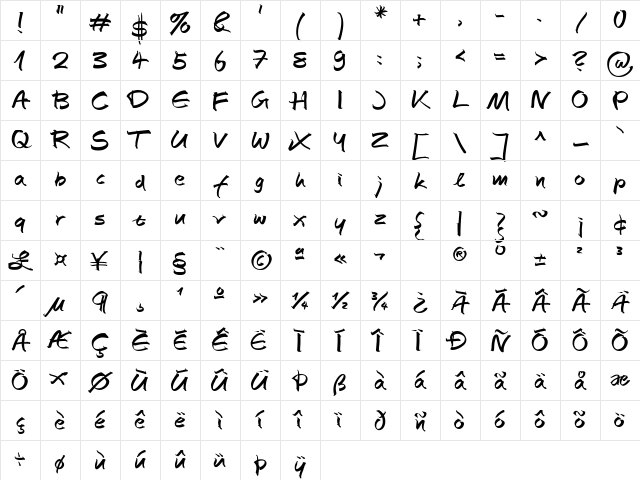
AutographScriptEF-Bold flows with the natural rhythm of handwritten lettering, making it ideal for designs that call for warmth and personal expression. Its bold stroke weight gives it real presence on the page.
Font Pairing: Combine AutographScriptEF-Bold with a simple geometric sans for maximum contrast - the tension between flowing curves and clean structure is a classic typographic pairing.
Pro Tip: Use AutographScriptEF-Bold for short runs of text - names, titles, or taglines. Extended body copy in script faces tires the eye quickly.